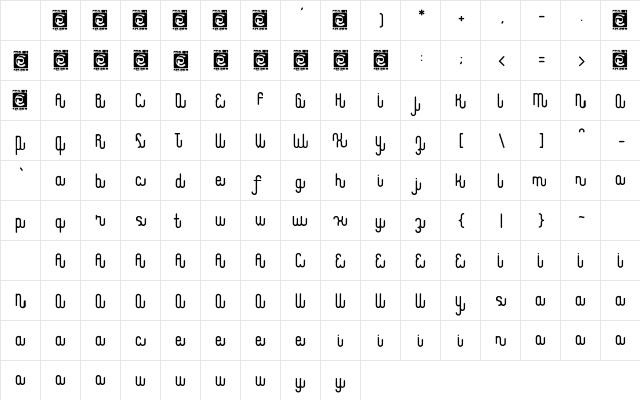
Complete Waffle Latte Free Regular glyph index. Displaying only characters natively supported by Waffle Latte Free Regular font.
Waffle Latte Free is a composed and adaptable typeface that performs quietly and consistently across a wide range of design contexts.